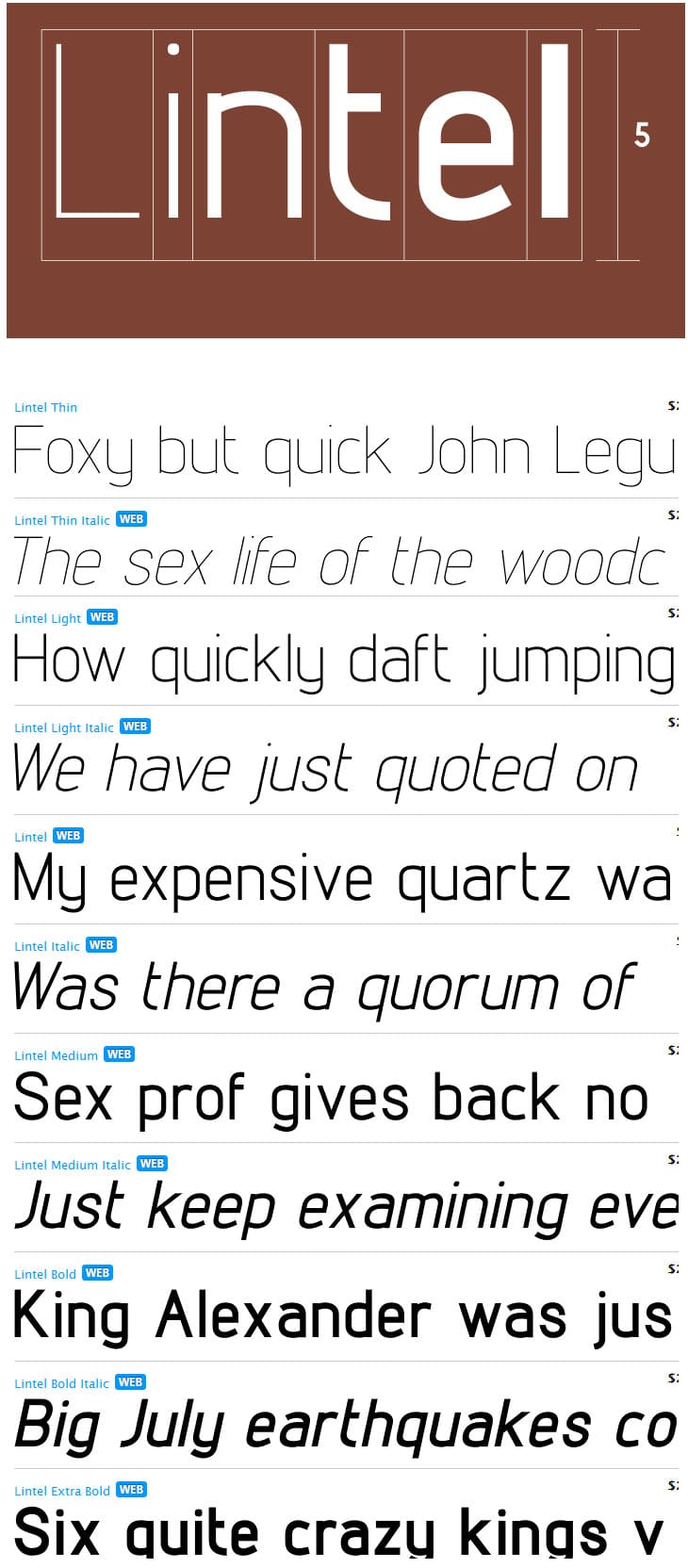
If you’re looking for a very useful free fonts website then you’ve definitely come to the right place. The font is a reworking of the classic style historically represented by the ‘alternate gothic’ sans serif typefaces. The icon of the computer stands for commercial desktop use (for commercial graphics and documents). You can filter your results by category, language, popularity, and even attributes such as thickness and width.
Open sans is the creation of steve matterson, a very talented and trendy typeface designer in the us. Then visit google or adobe typekit to use online. The 40 best fonts for websites 1. According to accessibility and usability at penn state, it’s also useful for website visitors with reading impairments who benefit from websites with clear and distinct lettering. 14 Best Website To Download Cool Fonts For Free DroidCops.
This is a top free and great website for fonts where you can use the fonts for. Top suggested google fonts for websites. Open sans is the creation of steve matterson, a very talented and trendy typeface designer in the us. It's minimalism at its best, and there's some great typography to be sampled. Everyone loves a free font. ) Business fonts, Typography fonts.
With web typography evolving at breakneck speed, google fonts is at the forefront of web font innovation. If you’re looking for a very useful free fonts website then you’ve definitely come to the right place. Here’s the list of our favorite 15 free web fonts that can also be downloaded for all of your website design and composition needs! Created by lukas bischoff, a designer based in germany, artill is a nice little website that's aimed purely at people wishing to download free fonts. The 41 best free web fonts Creative Bloq.
We have prepared a list of fonts that can benefit your website. Click the name of the font to grab the physical font from font squirrel (you may also be able to download from google). Medium contrast display sans serif fjalla one has been carefully designed and adjusted to the. Every single free font on the site, except for “aristocrat” and “muller narrow”, are accessible for both individual and business use. 20 Best Free Fonts for Web/Graphic Designers.
It's minimalism at its best, and there's some great typography to be sampled. Created by lukas bischoff, a designer based in germany, artill is a nice little website that's aimed purely at people wishing to download free fonts. You can also browse by font designer, new. What to look for in a font aggregator. 10 Best Free Fonts Download Websites You Should Use In 2018.
Click the name of the font to grab the physical font from font squirrel (you may also be able to download from google). Then visit google or adobe typekit to use online. The icon of the computer stands for commercial desktop use (for commercial graphics and documents). According to fontreach, arial is the #1 font used on the web, with over 604,000 websites currently using it. The Best Free Web Fonts And How To Use Them.
Playfair display is a serif font with an elegant, modern quality that features undertones of femininity. Currently, google fonts has a collection of over 1300 families. Typography is currently playing a central role in web design, with progressive improvements like variable fonts, css shapes, flexbox, css grids and subgrid definitively changing the way we work with typography in web design. At fontspace, you can download one of 36,000+ fonts in seconds.